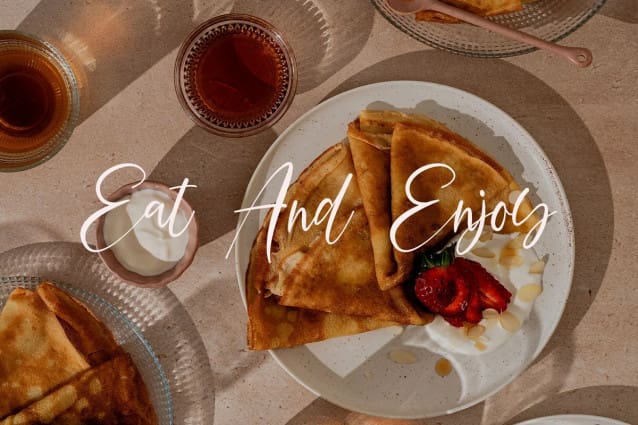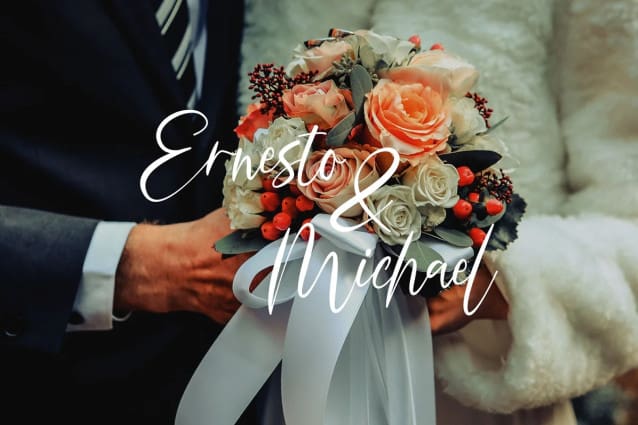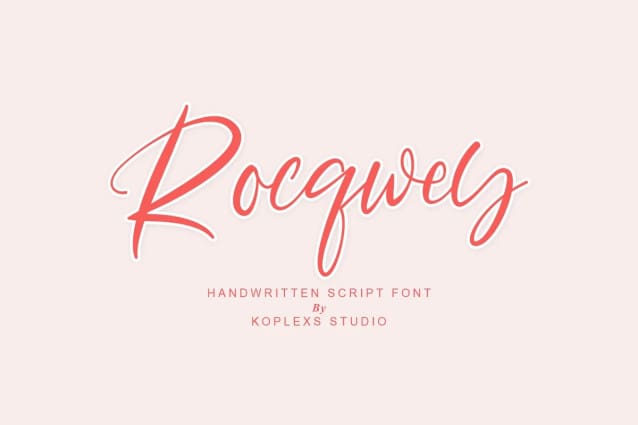
Rocqwey Font
Rocqwey Font is a handwritten sript made to look so natural. This font has been carefully designed for natural handwritten text, that it is perfect when paired with an uppercase serif or sans serif font, like the preview above.
Rocqwey Font is perfect for branding projects, logo, wedding designs, social media posts, advertisements, product packaging, product designs, label, photography, watermark, invitation, stationery and any projects that need handwriting taste.